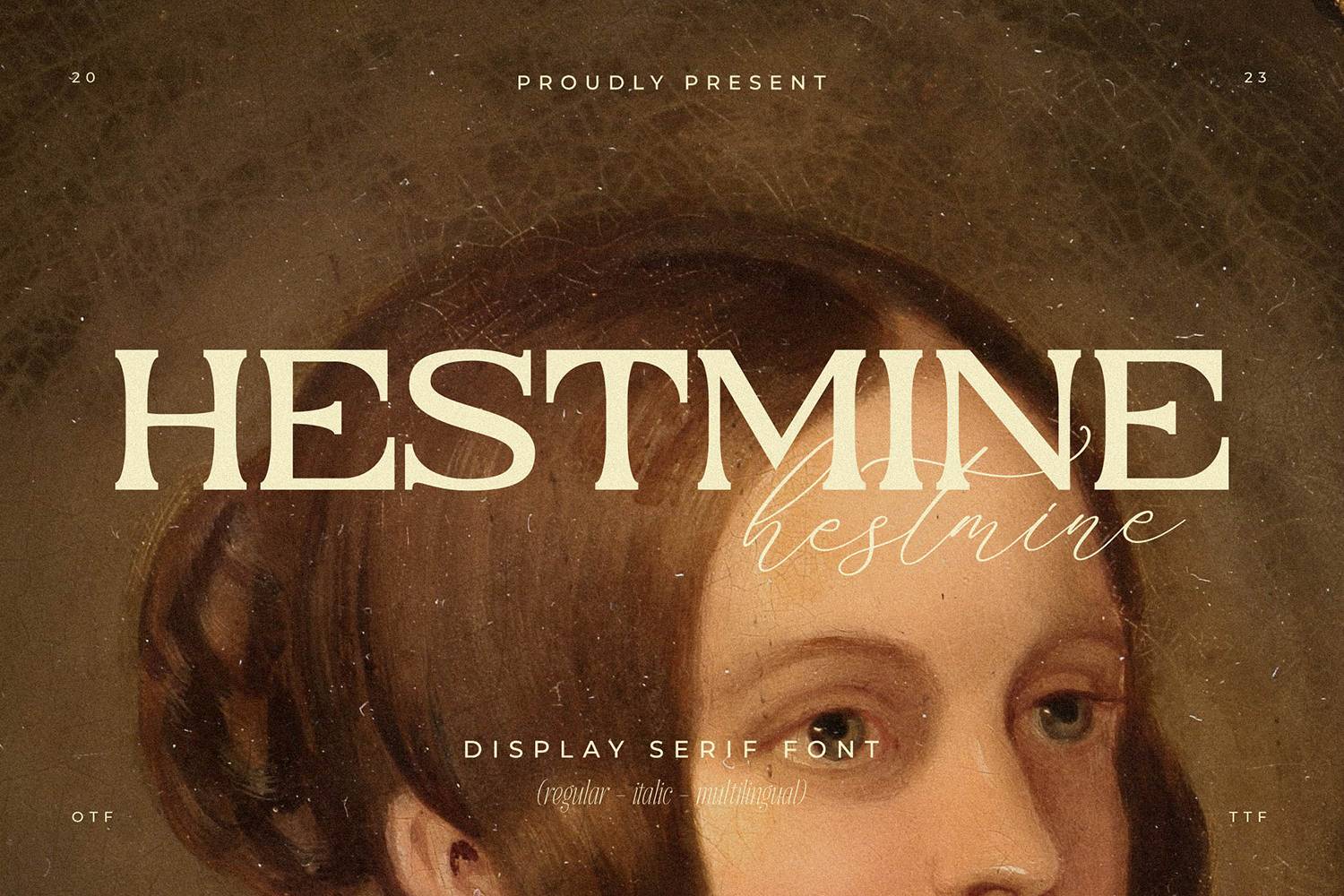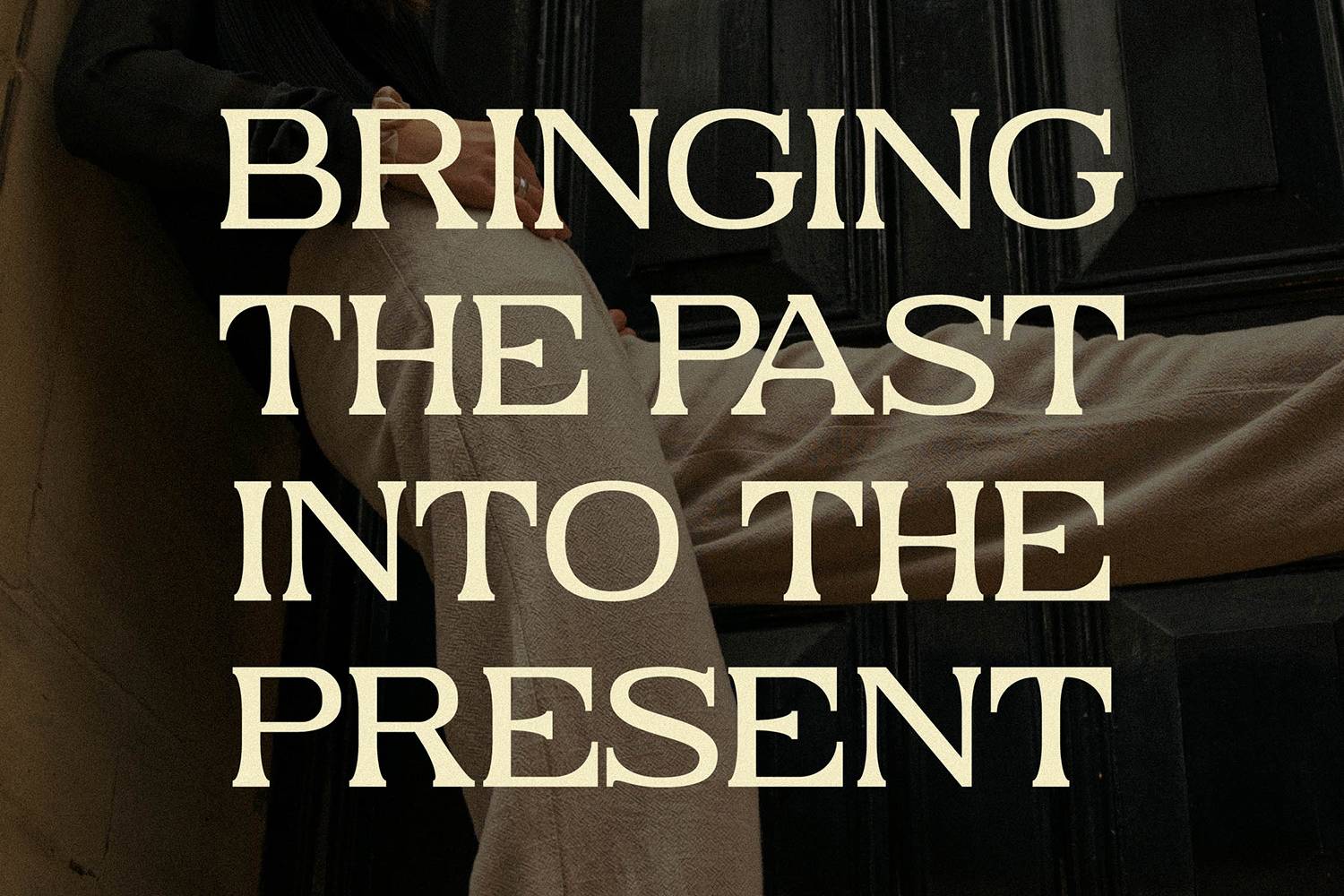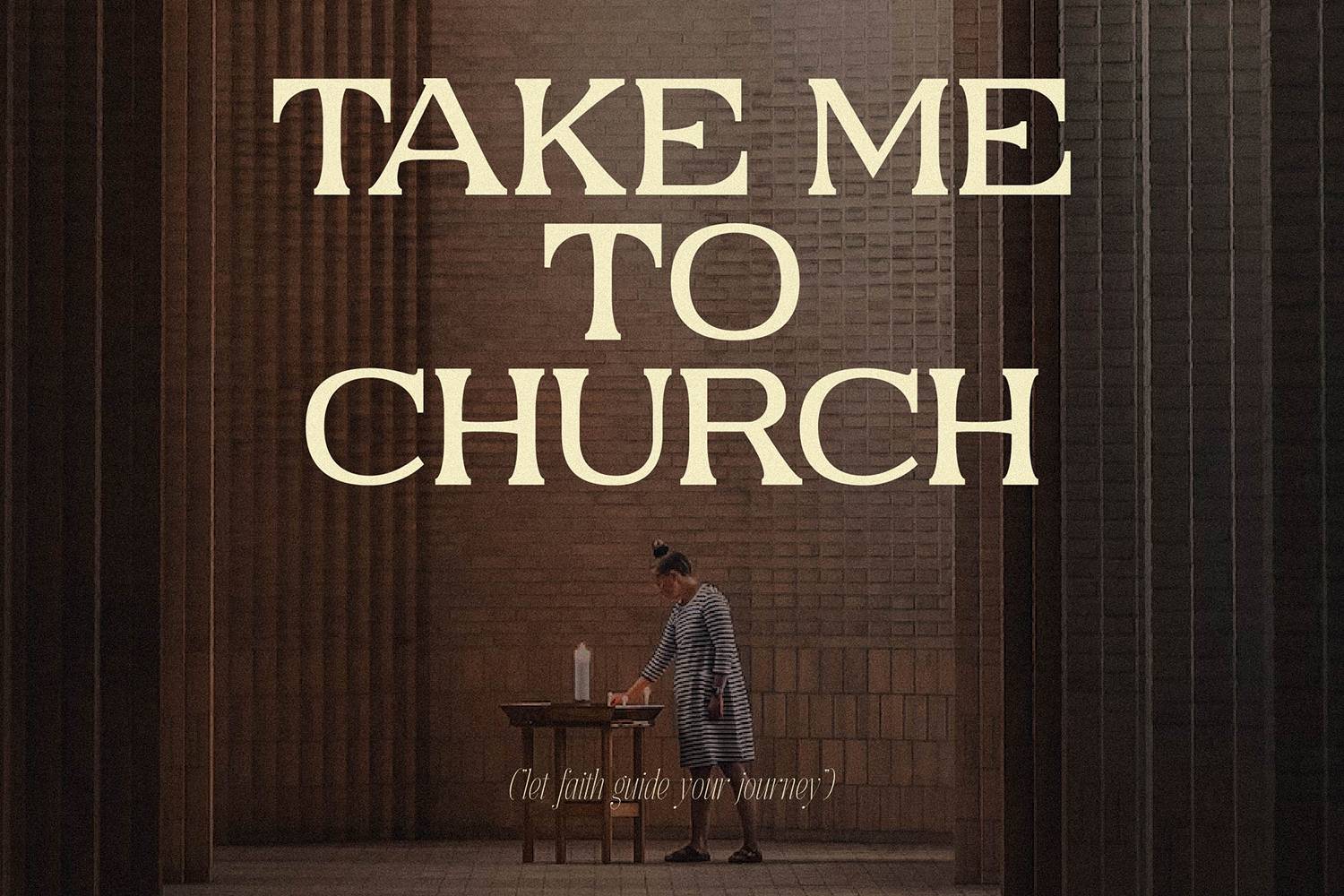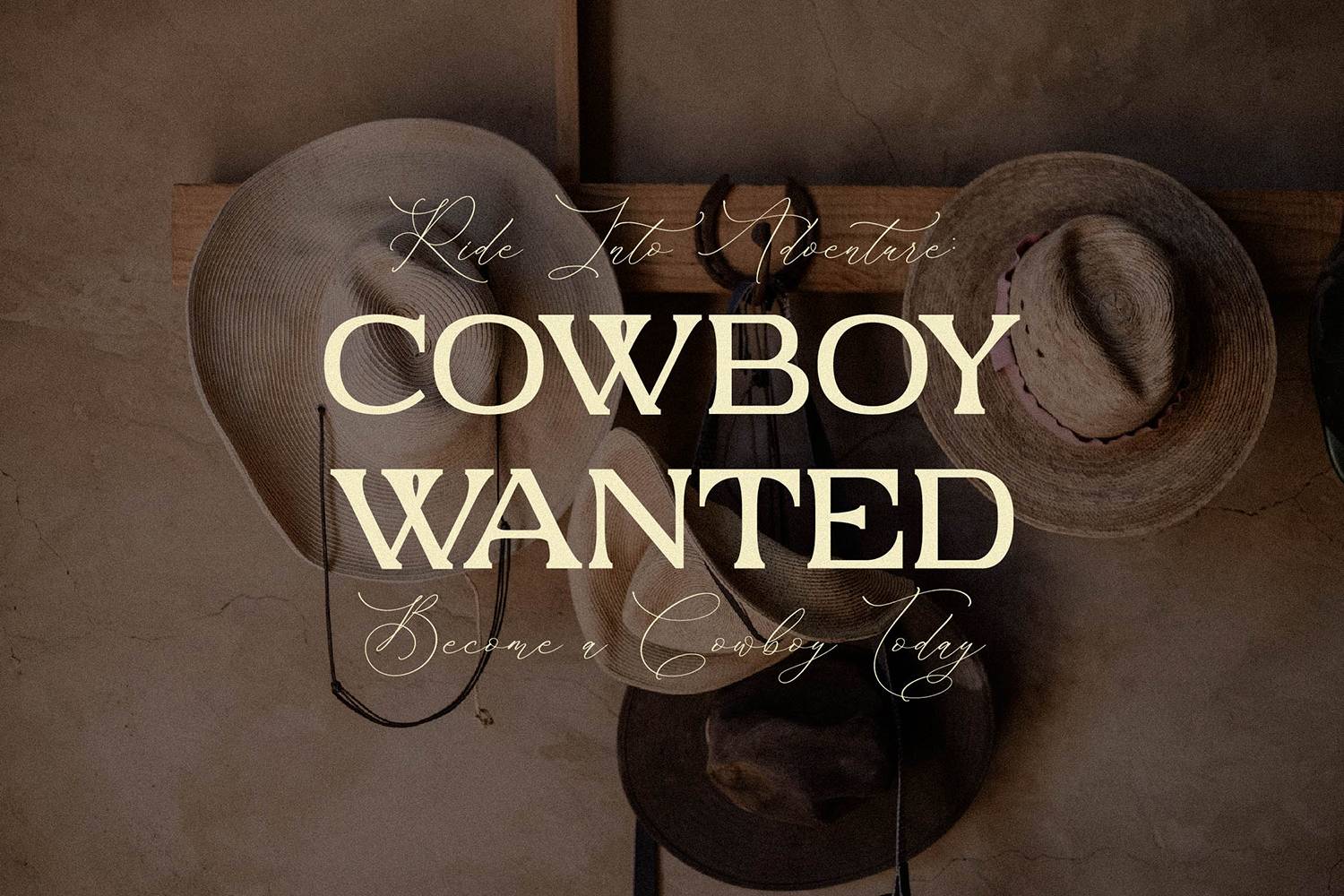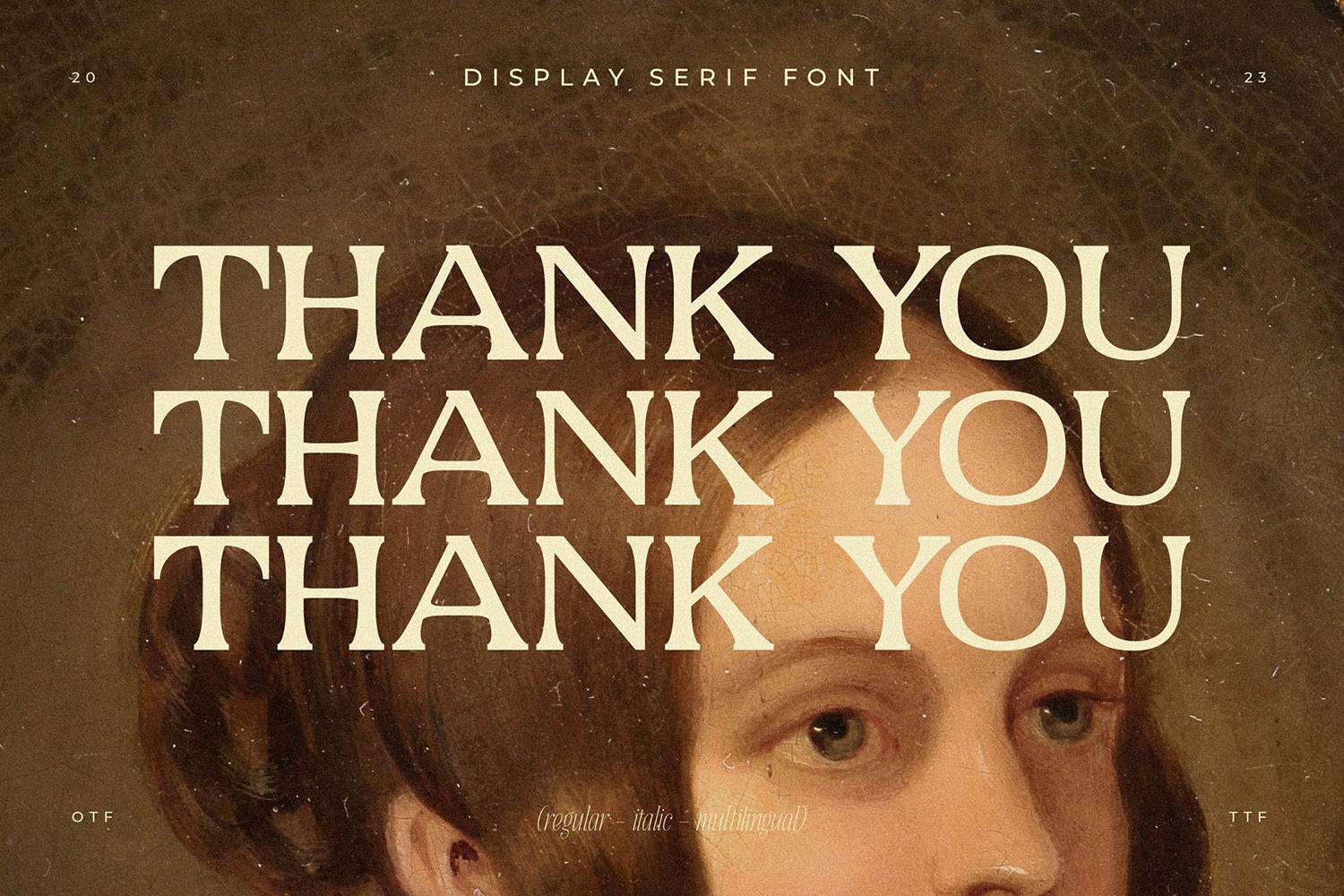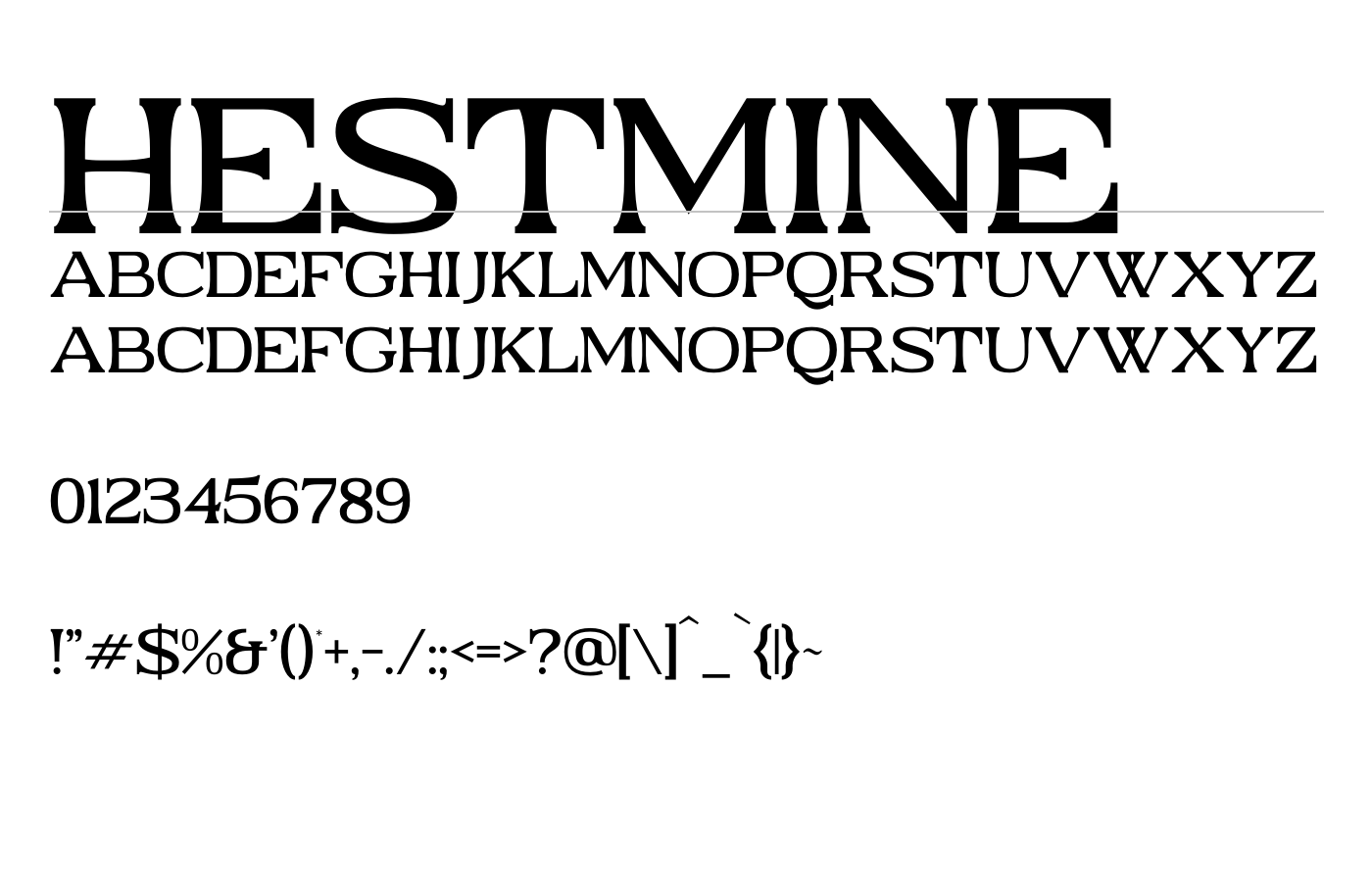
Hestmine is a sophisticated serif font with a classic yet distinctive flair, featuring strong contrast between thick and thin strokes and elegant bracketed serifs. Its tall, slightly condensed letterforms and unique details, like the curved Q tail, give it a refined and timeless feel, ideal for luxury branding, editorial headlines, and formal invitations. This font works best where an elegant, authoritative, and polished impression is desired.
Hestmine Font
About Hestmine Font